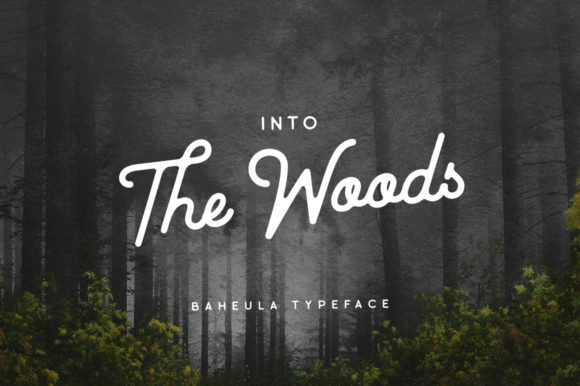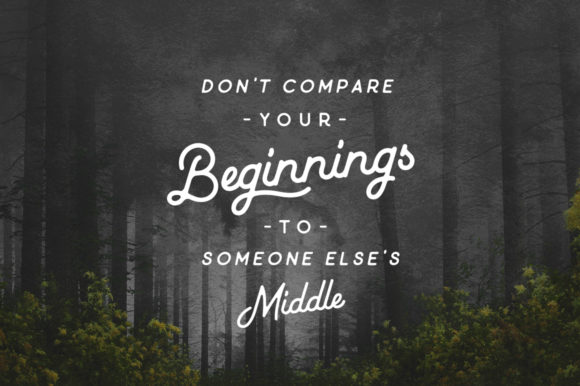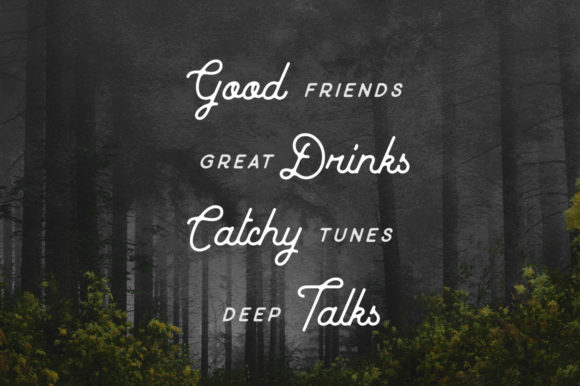
Introducing Baheula Font: The Perfect Blend of Vintage Charm and Modern Quirkiness
Are you a designer, crafter, or DIY enthusiast looking for a font that adds a touch of personality to your projects? Look no further than Baheula Font, a beautiful, vintage-inspired handwritten font that’s perfect for logos, branding, social media, and crafty DIY projects.
What is Baheula Font?
Baheula Font is a carefully crafted, handwritten font created using a brush pen. This unique approach gives the font its distinctive, clean, and slightly quirky feel. The result is a font that’s both elegant and approachable, making it ideal for a wide range of applications.
Key Features of Baheula Font
- Vintage inspiration: Baheula Font draws inspiration from classic, handwritten fonts, but with a modern twist.
- Handwritten with a brush pen: The font’s unique character comes from its creation using a brush pen, giving it a personal, human touch.
- Clean and quirky: Baheula Font strikes the perfect balance between cleanliness and playfulness, making it versatile and fun to use.
- Perfect for creative projects: Whether you’re working on logos, branding, social media graphics, or DIY crafts, Baheula Font is the perfect choice.
Why Choose Baheula Font?
With so many fonts available, why choose Baheula Font for your next project? Here are just a few reasons:
- Unique character: Baheula Font’s distinctive, handwritten style sets it apart from more generic fonts.
- Versatility: The font’s clean and quirky feel makes it suitable for a wide range of applications, from formal logos to playful DIY crafts.
- Ease of use: Baheula Font is easy to read and works well in various sizes, making it perfect for both digital and print applications.
Using Baheula Font in Your Projects
Baheula Font is incredibly versatile and can be used in a variety of creative projects. Here are some ideas to get you started:
- Logos and branding: Create a unique and memorable brand identity with Baheula Font.
- Social media graphics: Add a personal touch to your social media posts and stories with this charming font.
- DIY crafts: Use Baheula Font to add a special touch to your handmade crafts, such as greeting cards, invitations, and scrapbooking.
- Stationery and packaging: Elevate your stationery and packaging designs with the elegant, yet playful feel of Baheula Font.
Tips for Pairing Baheula Font with Other Fonts
To get the most out of Baheula Font, consider pairing it with other fonts that complement its unique character. Here are some tips:
- Pair with a sans-serif font: Combining Baheula Font with a clean sans-serif font creates a nice contrast and adds visual interest.
- Match with a script font: For a more elegant look, pair Baheula Font with another script font that shares similar characteristics.
- Use with a bold font: For added emphasis, pair Baheula Font with a bold font to create a striking visual effect.
Baheula Font is a unique and versatile font that’s perfect for designers, crafters, and DIY enthusiasts looking to add a touch of personality to their projects. With its vintage inspiration, clean and quirky feel, and ease of use, Baheula Font is sure to become a favorite in your font collection. So why wait? Download Baheula Font today and start creating beautiful, eye-catching projects that stand out from the crowd!